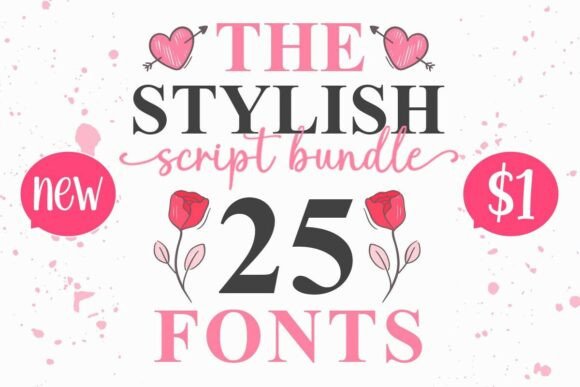
The Stylish Script Bundle
Finding the right design elements can be challenging, but The Stylish Script Bundle offers an exceptional collection that elevates your work instantly.
Whether you are creating POD (Print on Demand) products, wedding invitations, or social media graphics, The Stylish Script Bundle is an ideal fit.